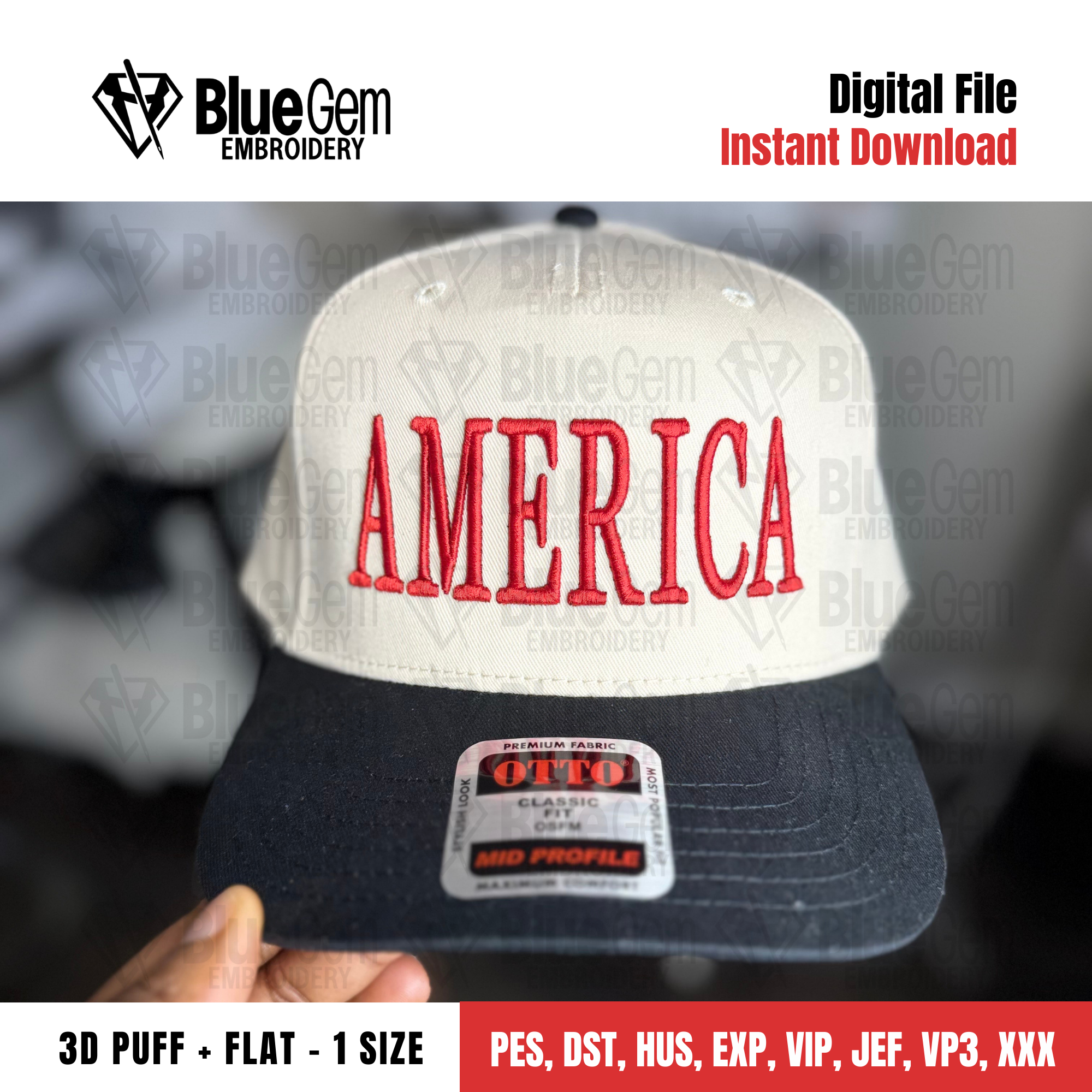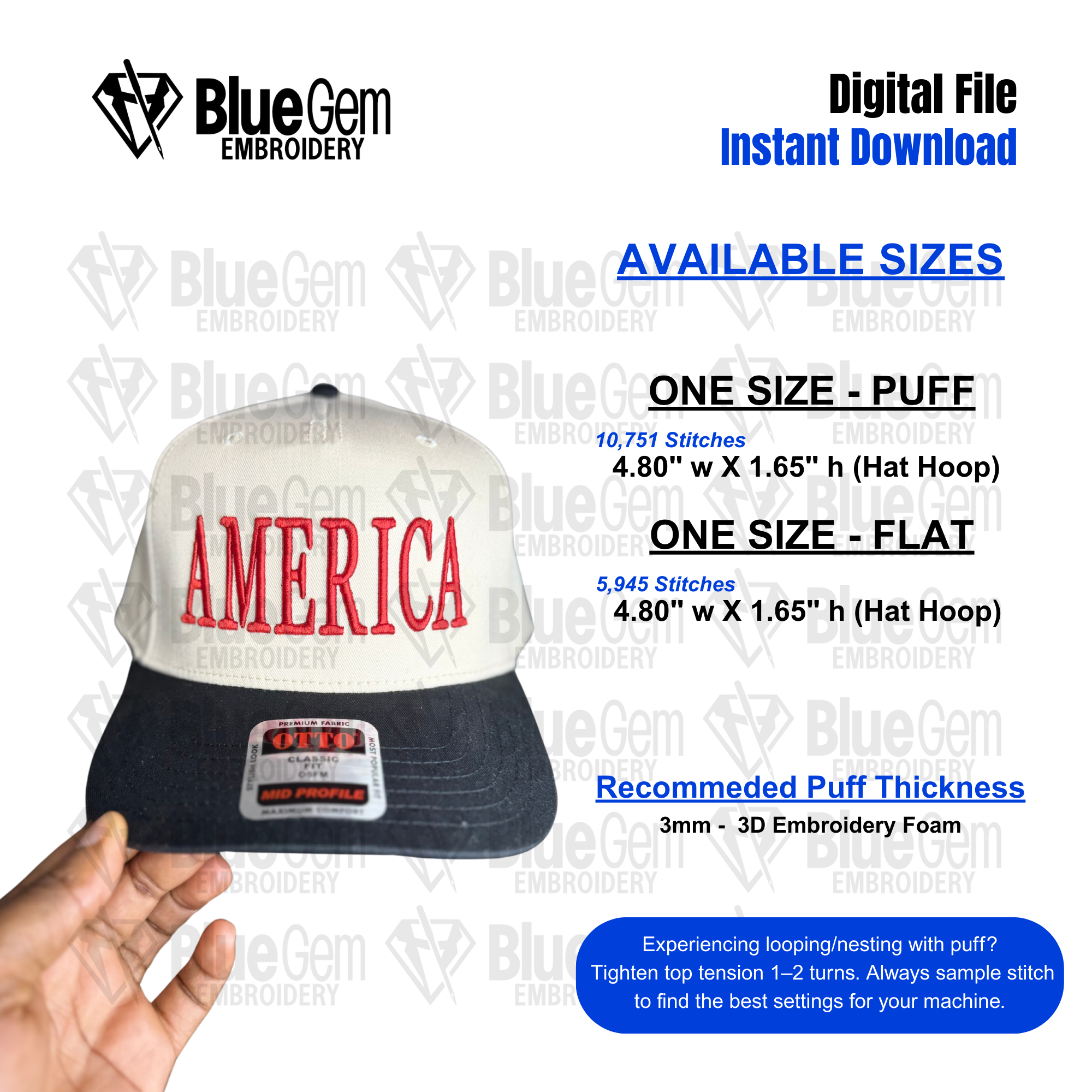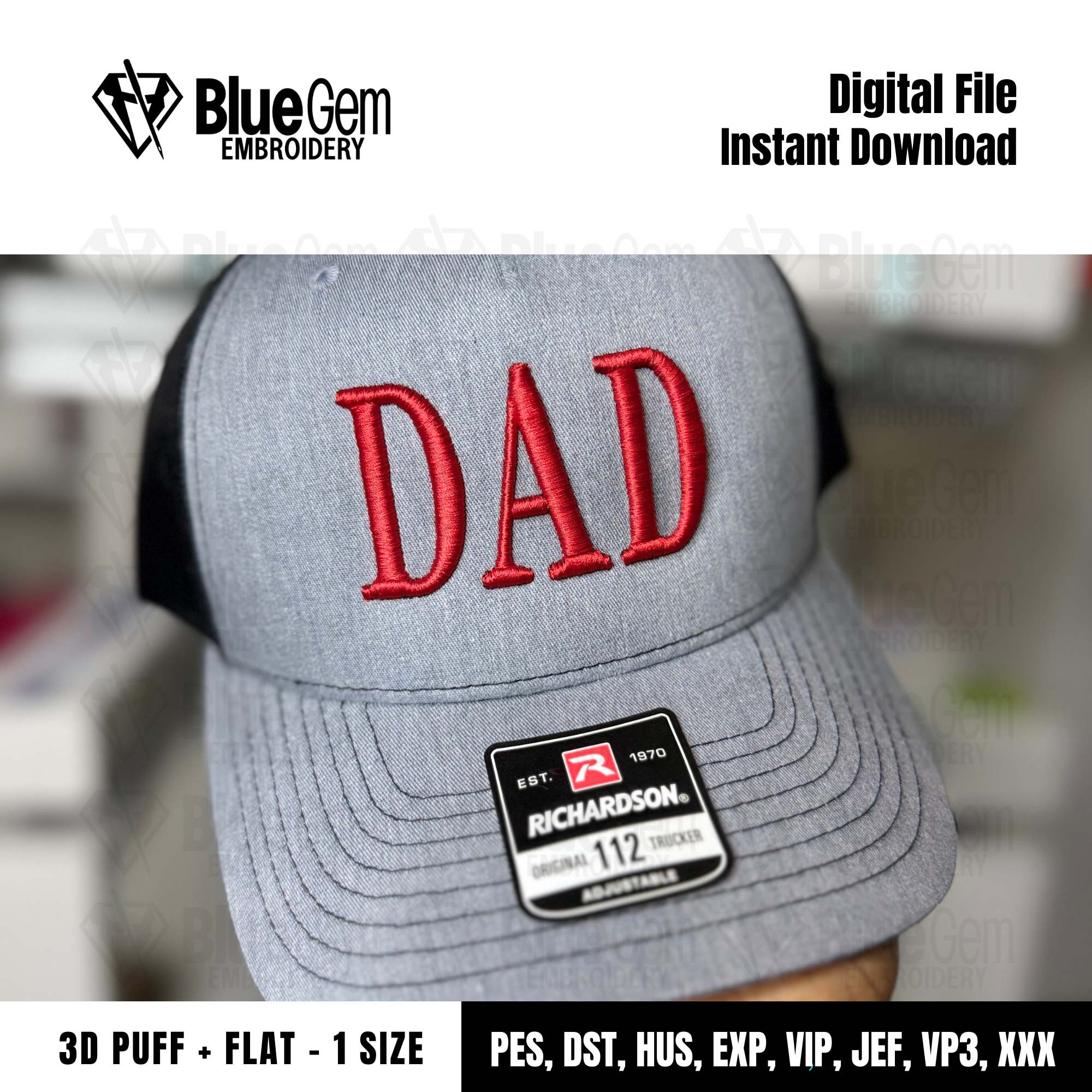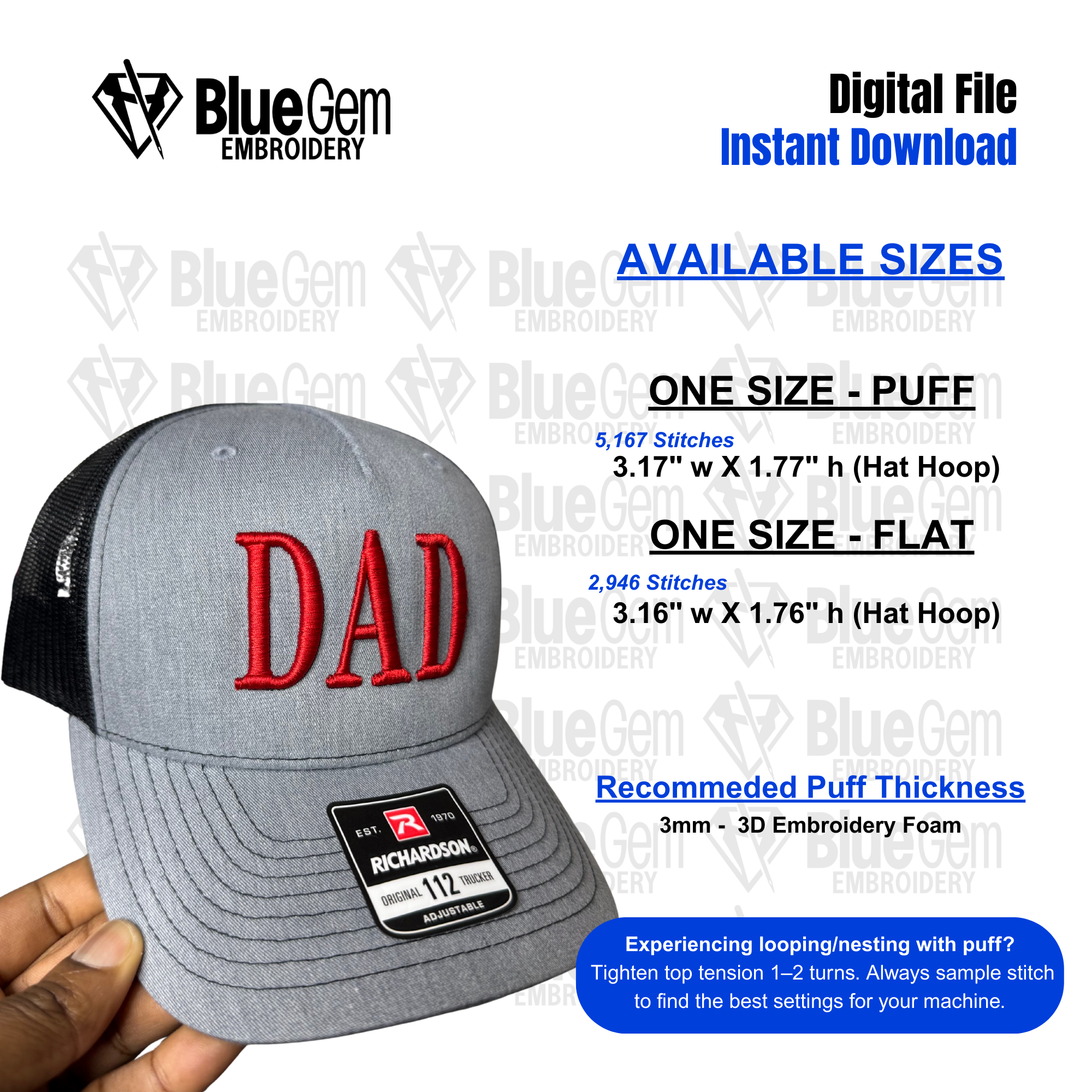
Tired of fonts that don’t work for hats?
Get this 3D Pff Serif Font that was digitized and sample stitched specifically for hats
Each letter was manually digitized with you in mind and tested in-house on a Barudan XL2 and Ricoma Marquee 2001 Embroidery Machine.
Real Stitching. Real Results. See It for Yourself.
• A - Z Uppercase Letters Only
• 3 Sizes - 1.6" , 1.85" & 2"
• Digitized for 3mm puff embroidery foam
• Each letter includes a tackdown stitch to hold the foam in place with no extra steps or hand-holding required.
• Easy to clean - The letters are digitized with a density that allows for minimal cleanup once everything is set correctly on your end, including tension.
• Digitized specifically for hats - Each object was digitized to stitch buttom up, center out with minimal trims in each letter.